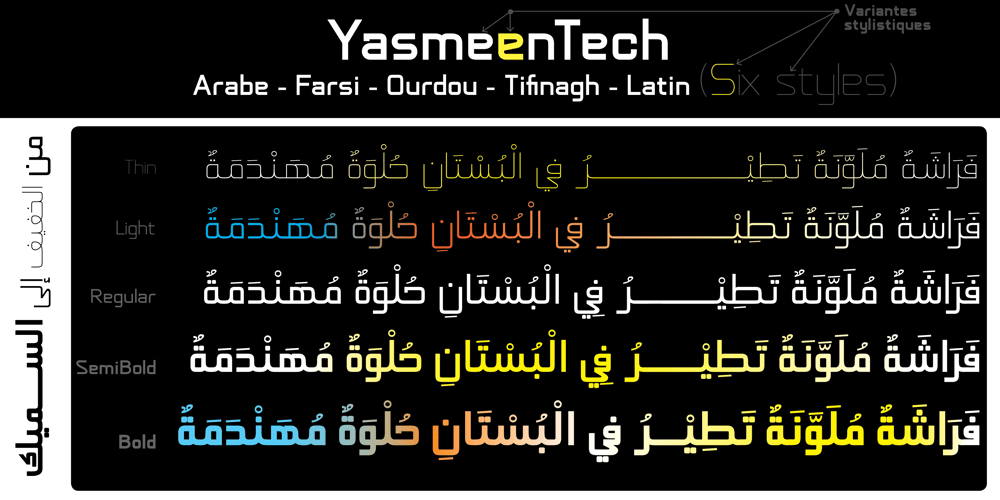
Yasmeen Tech
Yasmeen Tech font
Yasmeen Tech Font Family was designed by Ammar Bouras and published by GrafikarFonts. Yasmeen Tech contains 5 styles and family package options. YasmeenTech est une police inspirée de la calligraphie arabe Kufi.YasmeenTech supporte les scripts Arabe, Tifinagh, Farsi, Ourdou et Latin